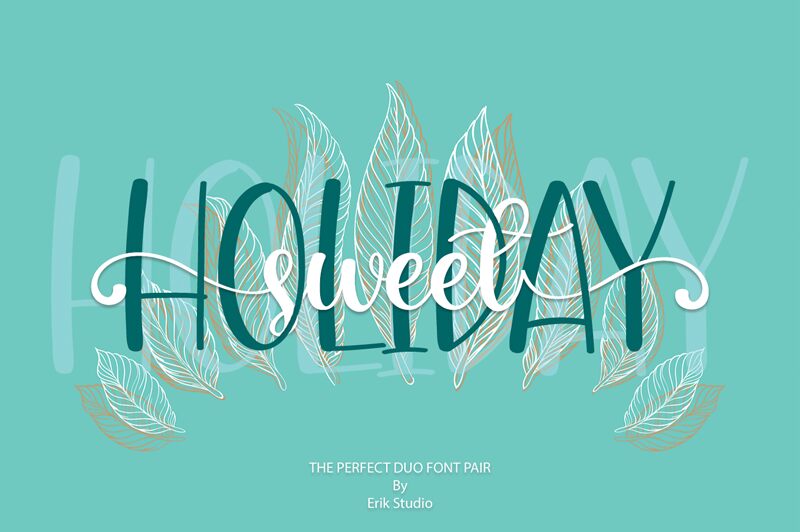
Sweet Holiday Display
Sweet Holiday is a duo-styled handwritten and display font that feels equally charming and delicate. This font will turn any creative idea into a standout! You can successfully use it for Christmas cards, wedding designs, local signs, branding, logos, quotes, photography projects, birthday cards, and so much more!